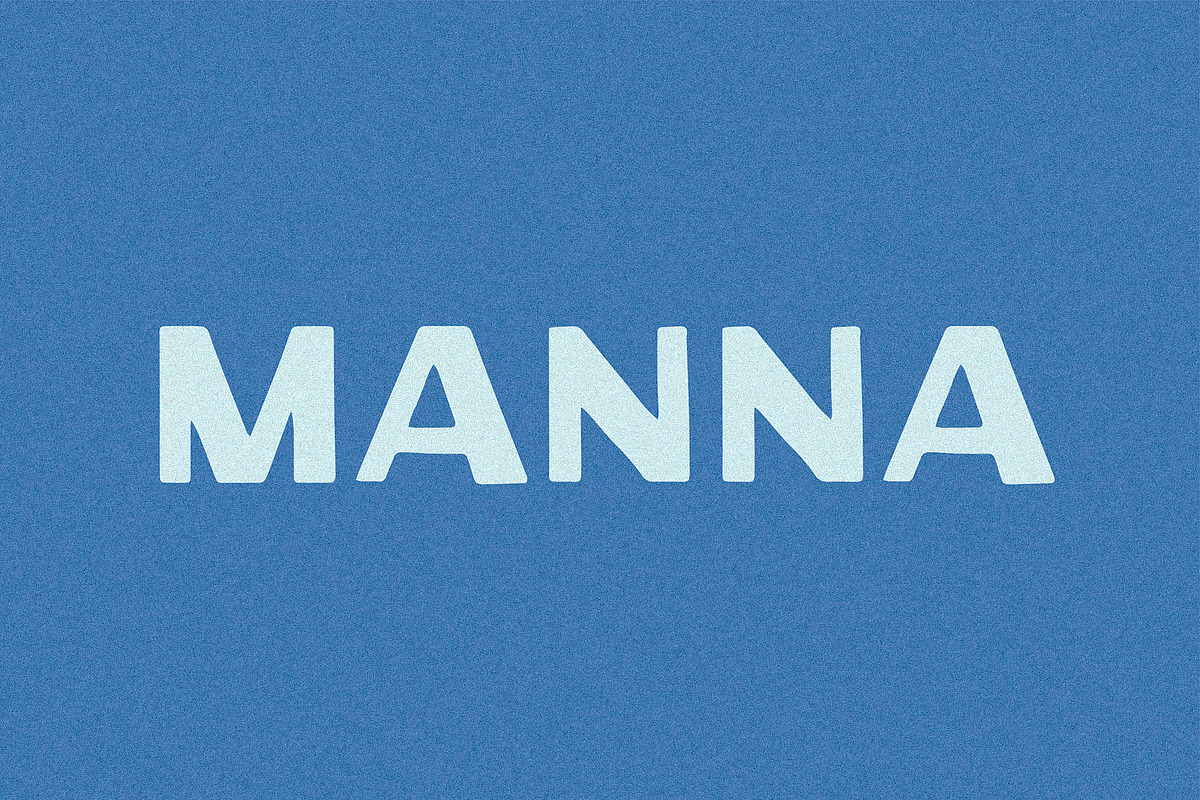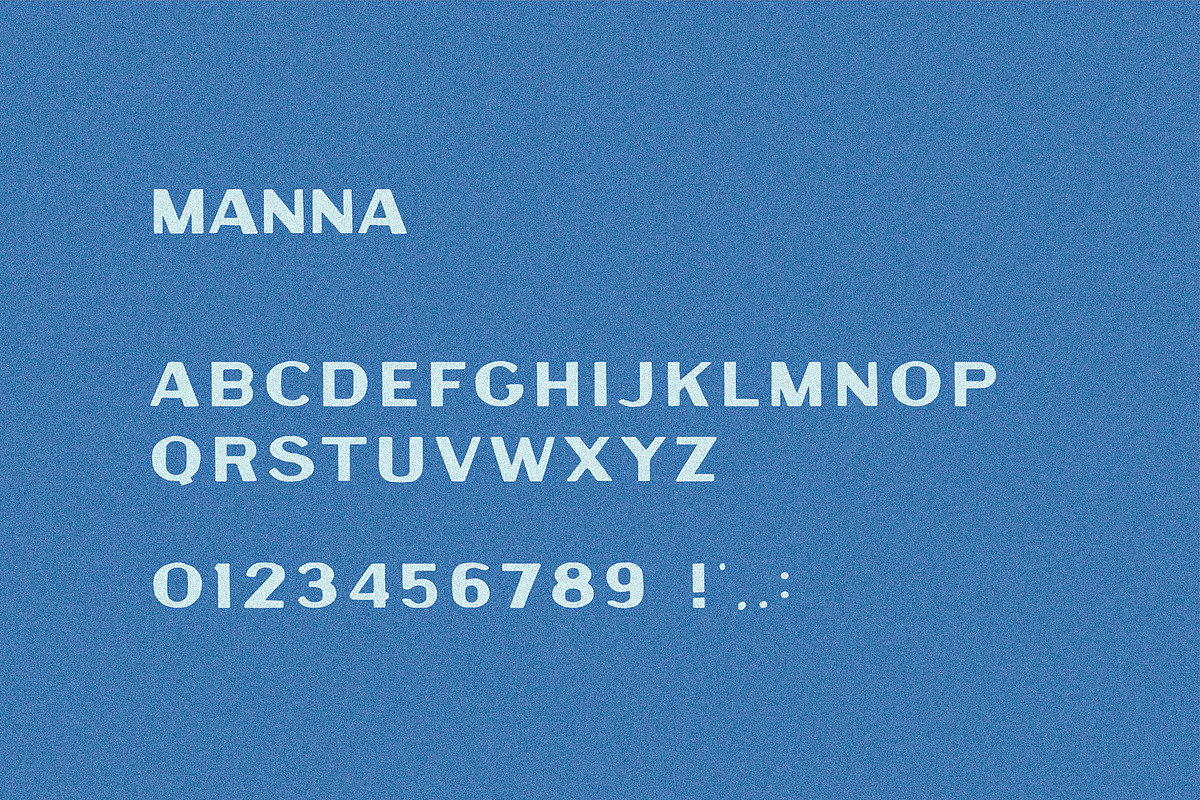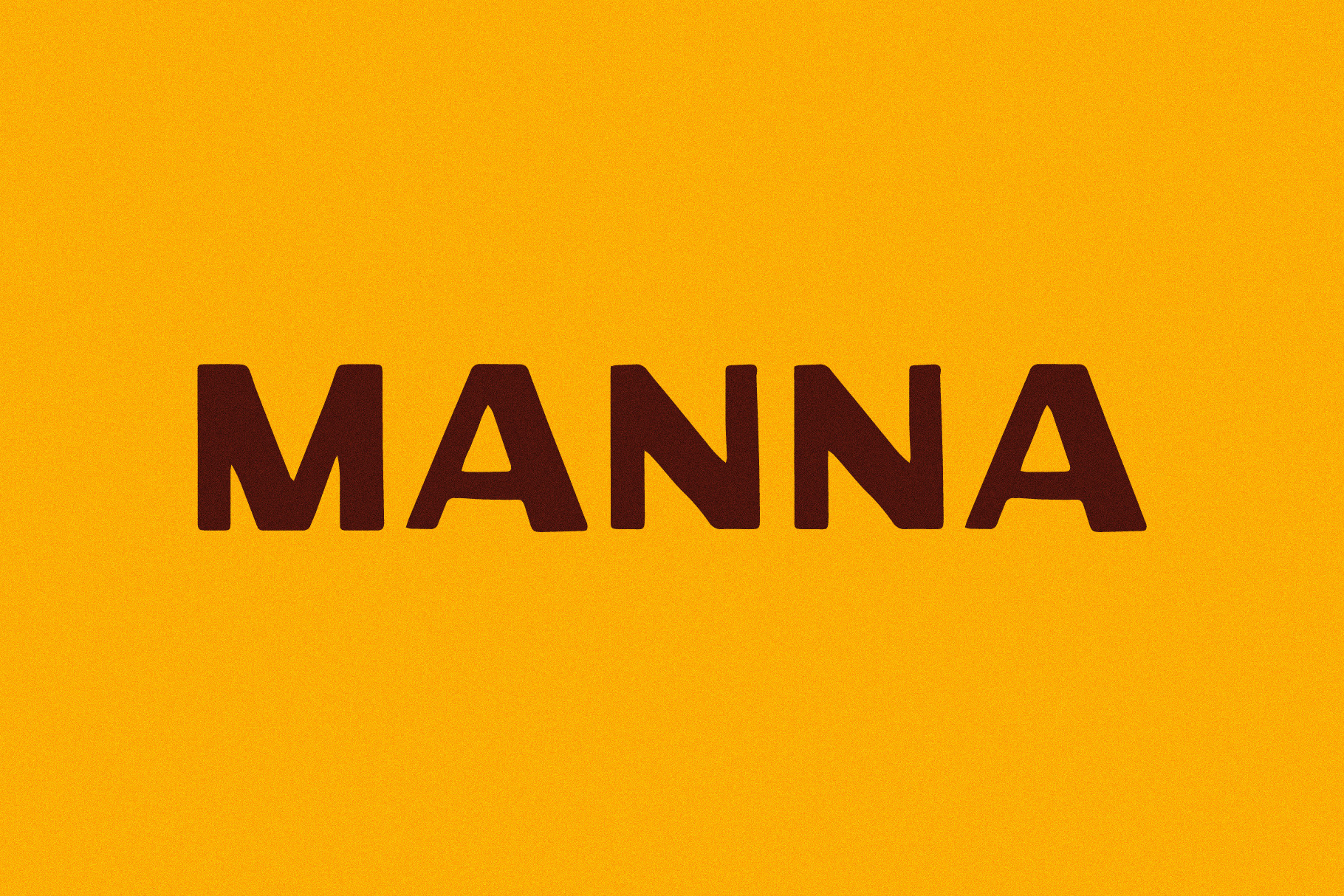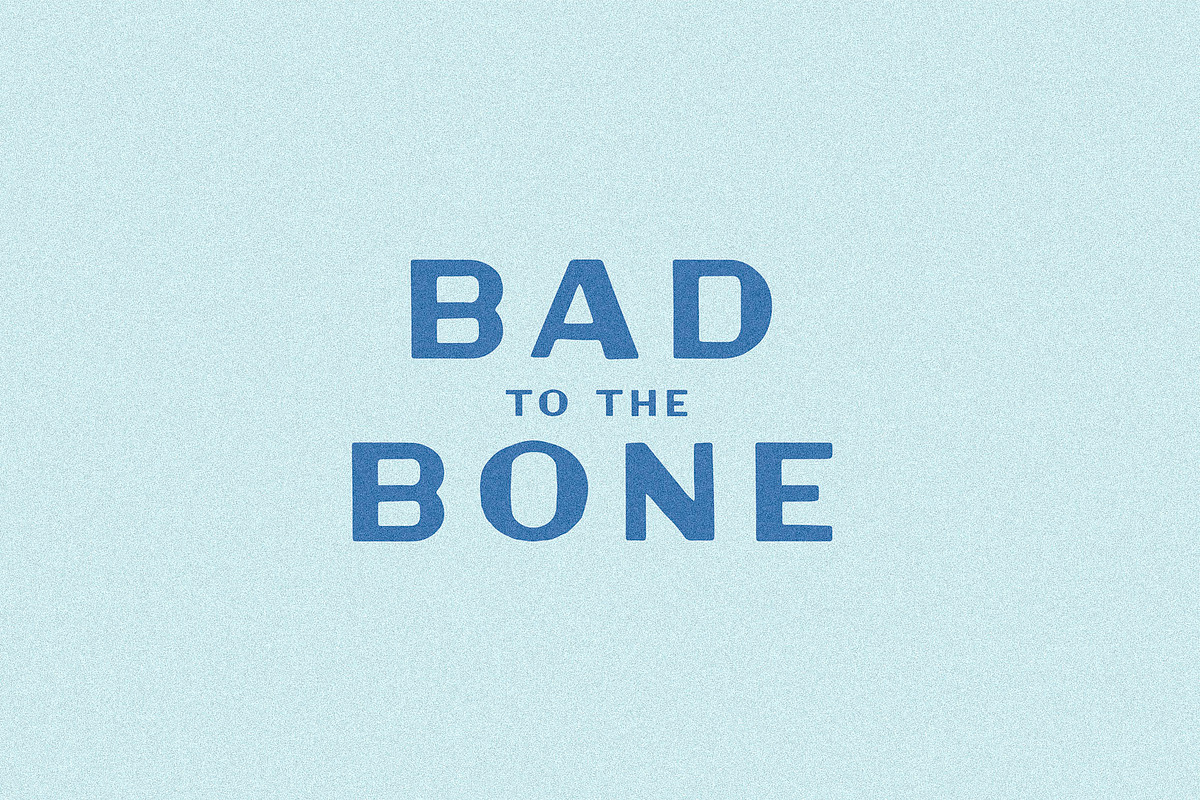
Manna I A Classic Sans Serif Font
Design’s Answer to a Button-Down Shirt.
Manna is a clean, timeless, sans-serif, and probably the safest bet you’ll make all day. Use it when you want things to look good without making a scene.